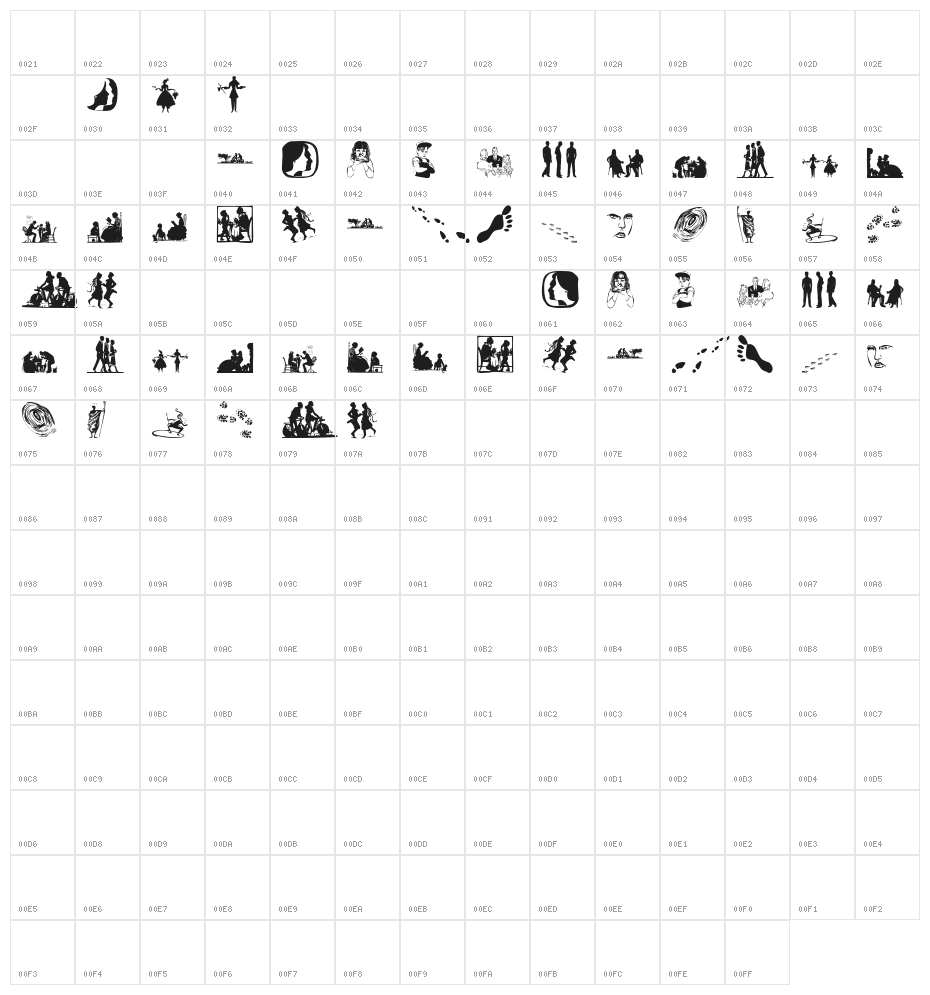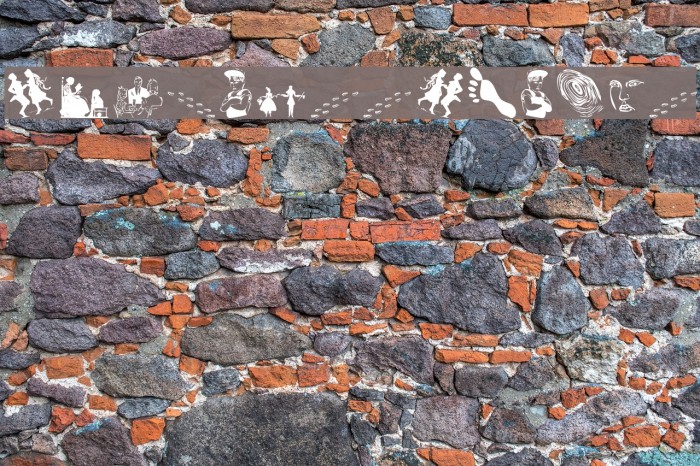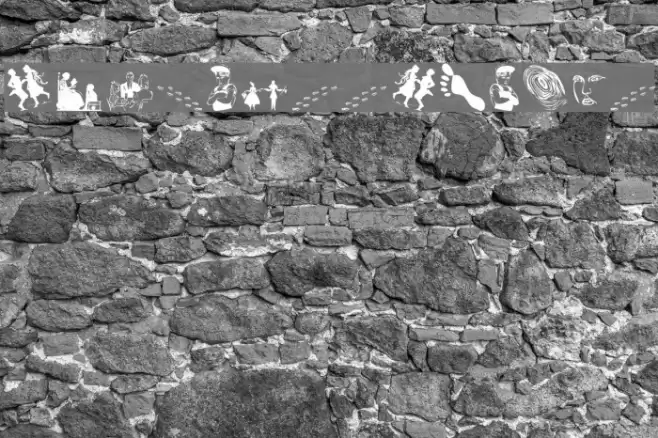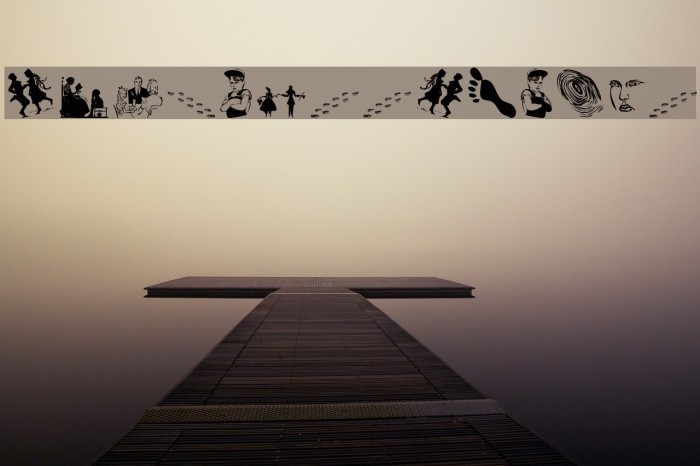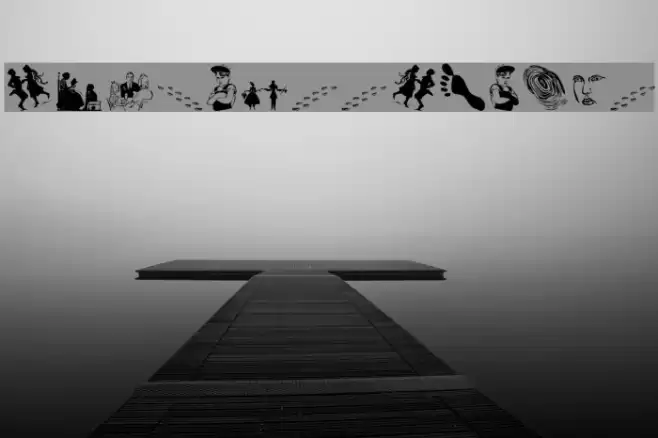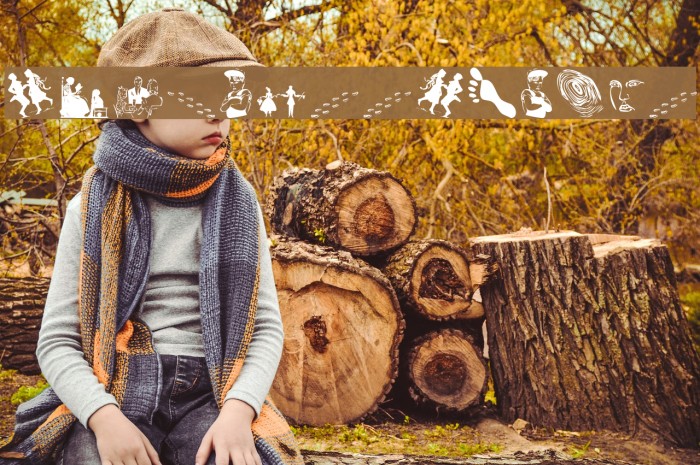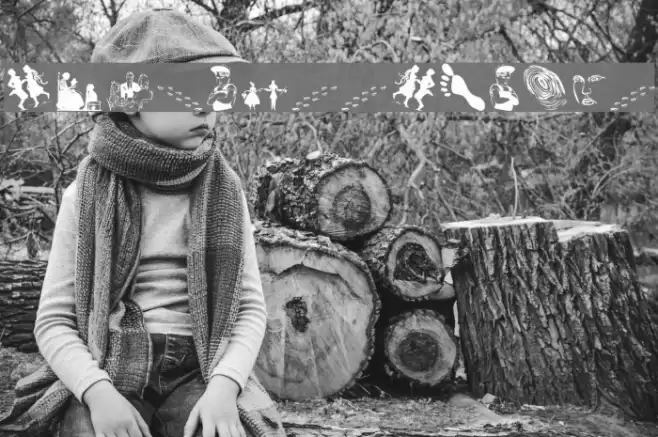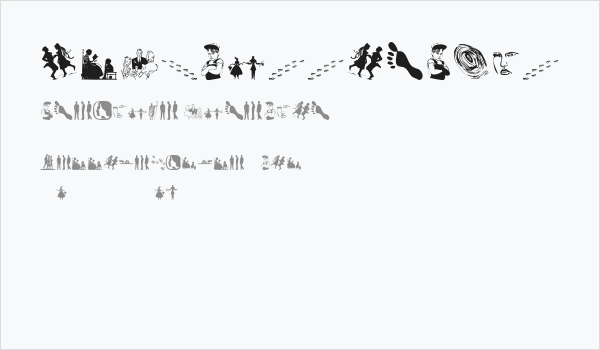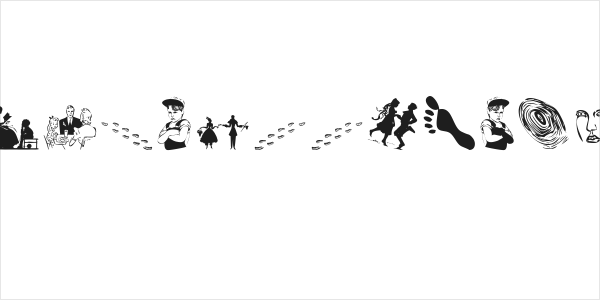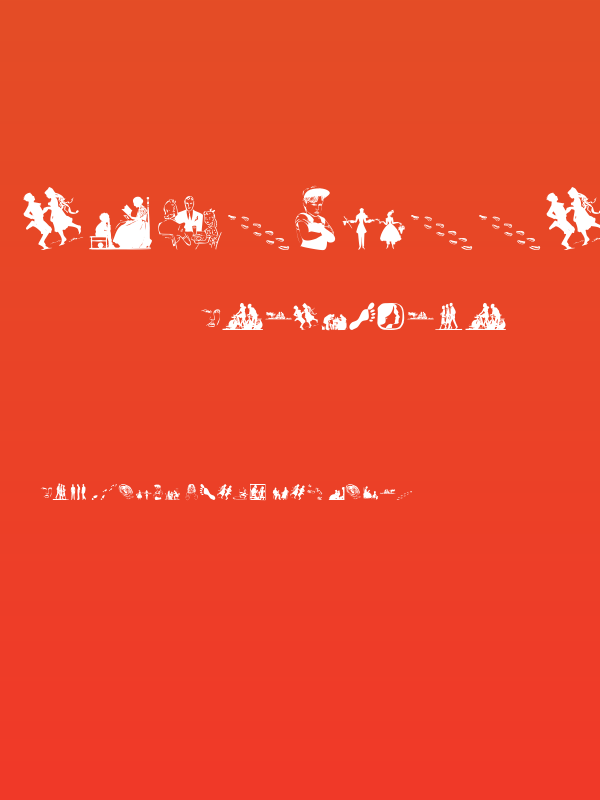
OldScissorCuts Font
OldScissorCuts Description
This is a decorative font composed entirely of intricate silhouette illustrations. Each character is represented by a unique scene or figure, ranging from people in various poses to whimsical elements like footprints and abstract shapes. The style is reminiscent of traditional paper cut art, with a strong emphasis on storytelling through imagery. The characters are detailed and expressive, making them ideal for creative and artistic projects. The font lacks traditional letterforms, focusing instead on visual storytelling, which adds a unique charm and artistic flair.
| Use Case | Artistic projects, decorative elements, visual storytelling. |
| Proposed Projects | Ideal for creative projects such as greeting cards, posters, or artistic book covers where visual storytelling is key. |